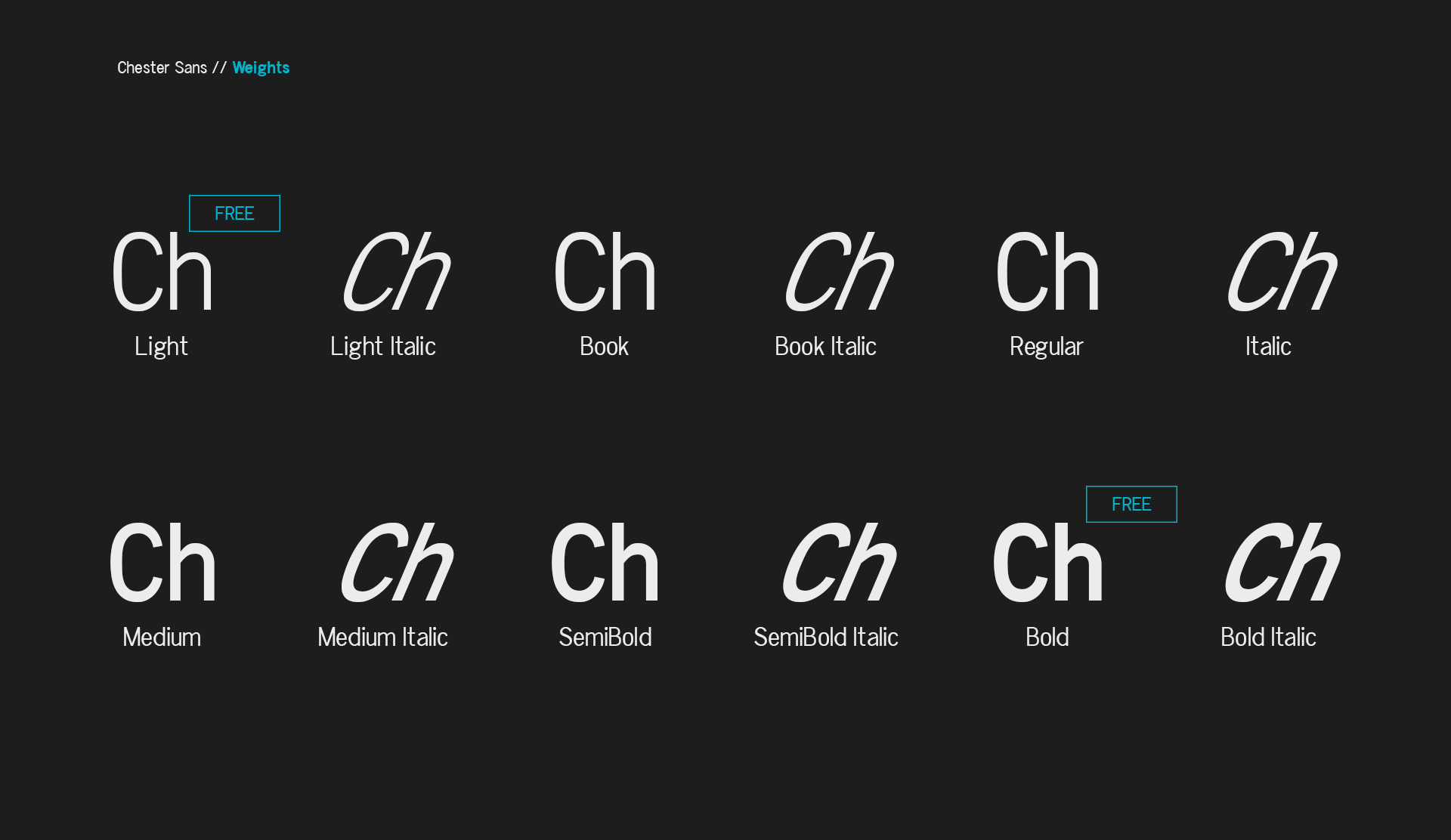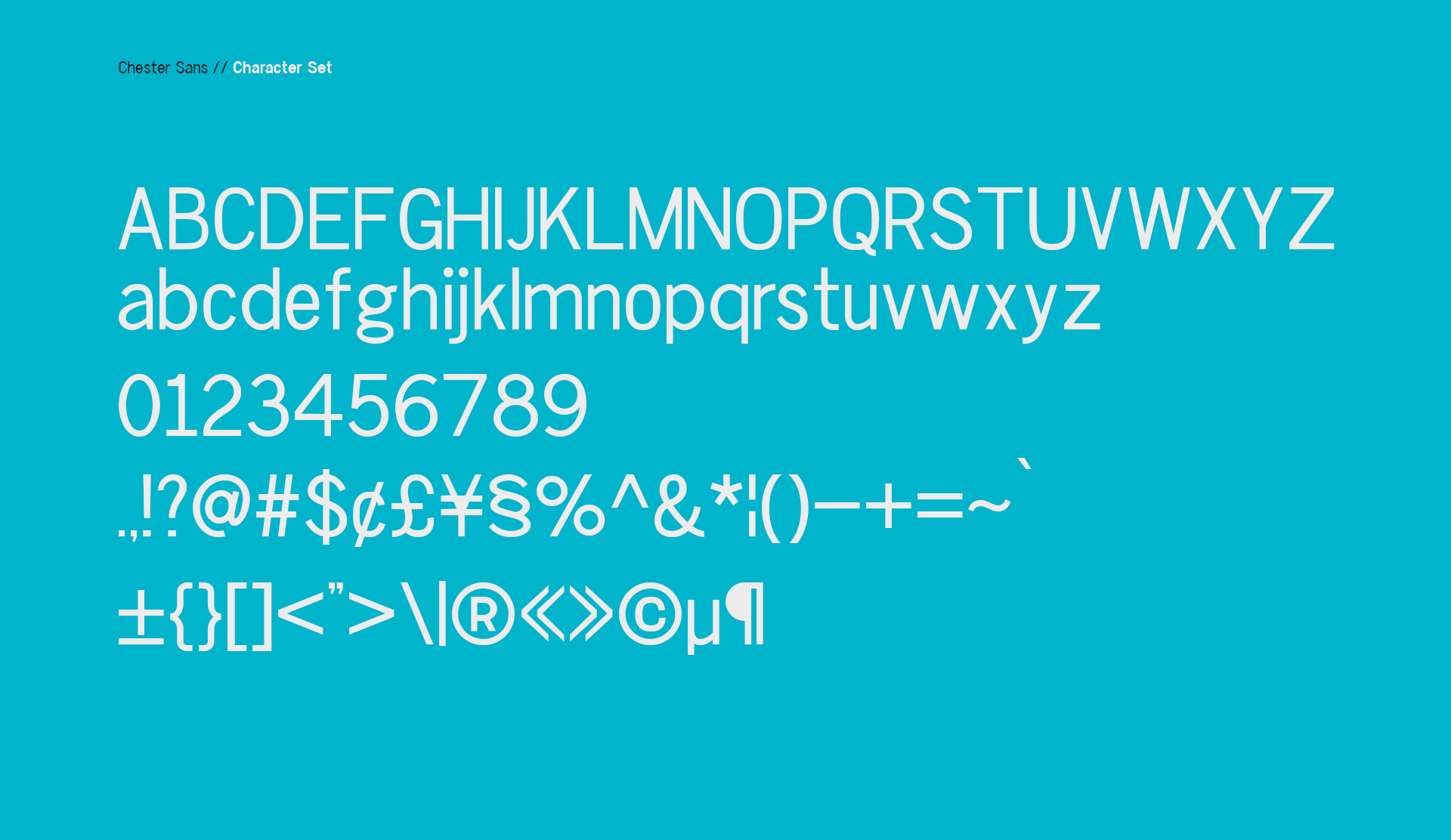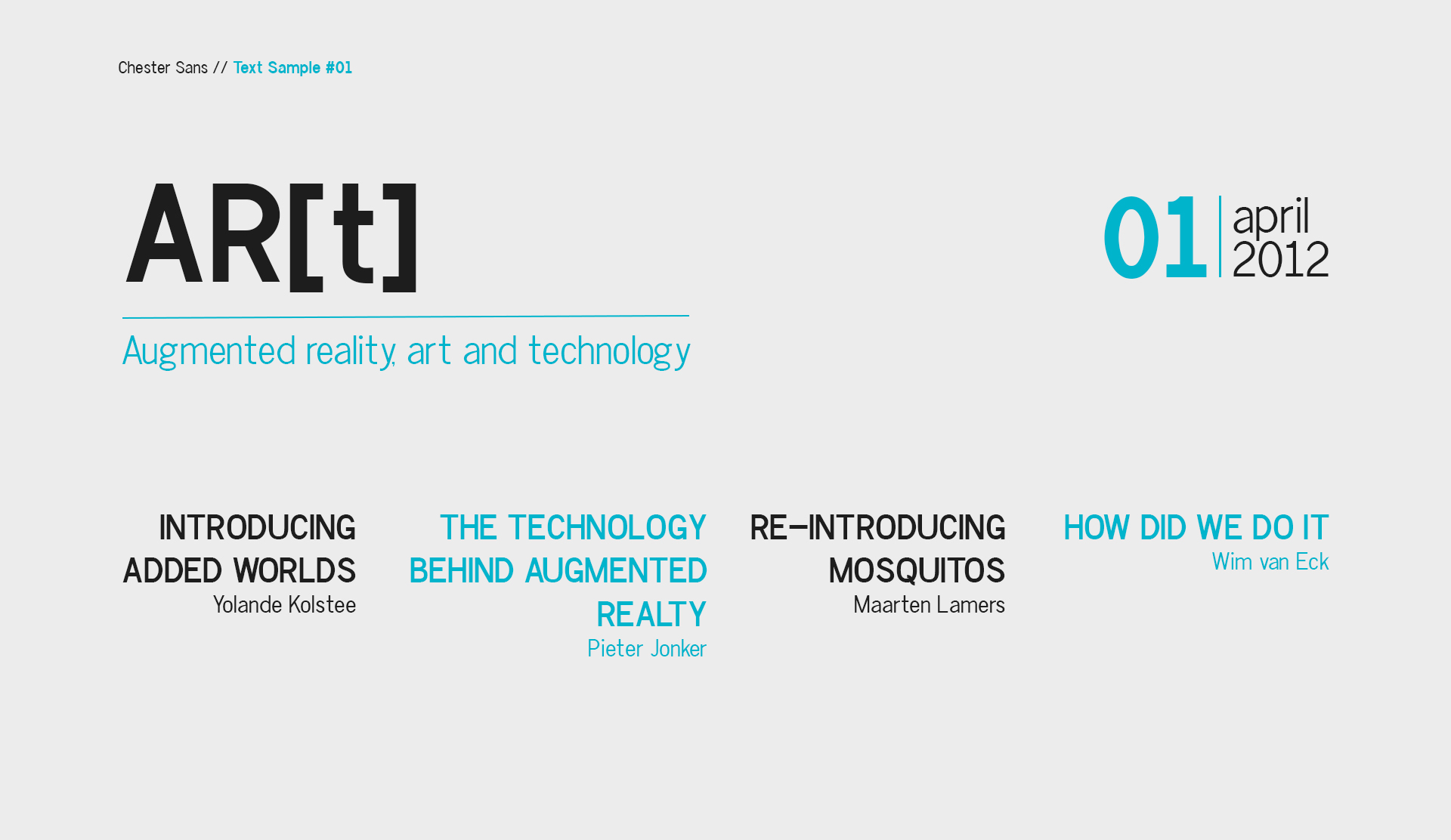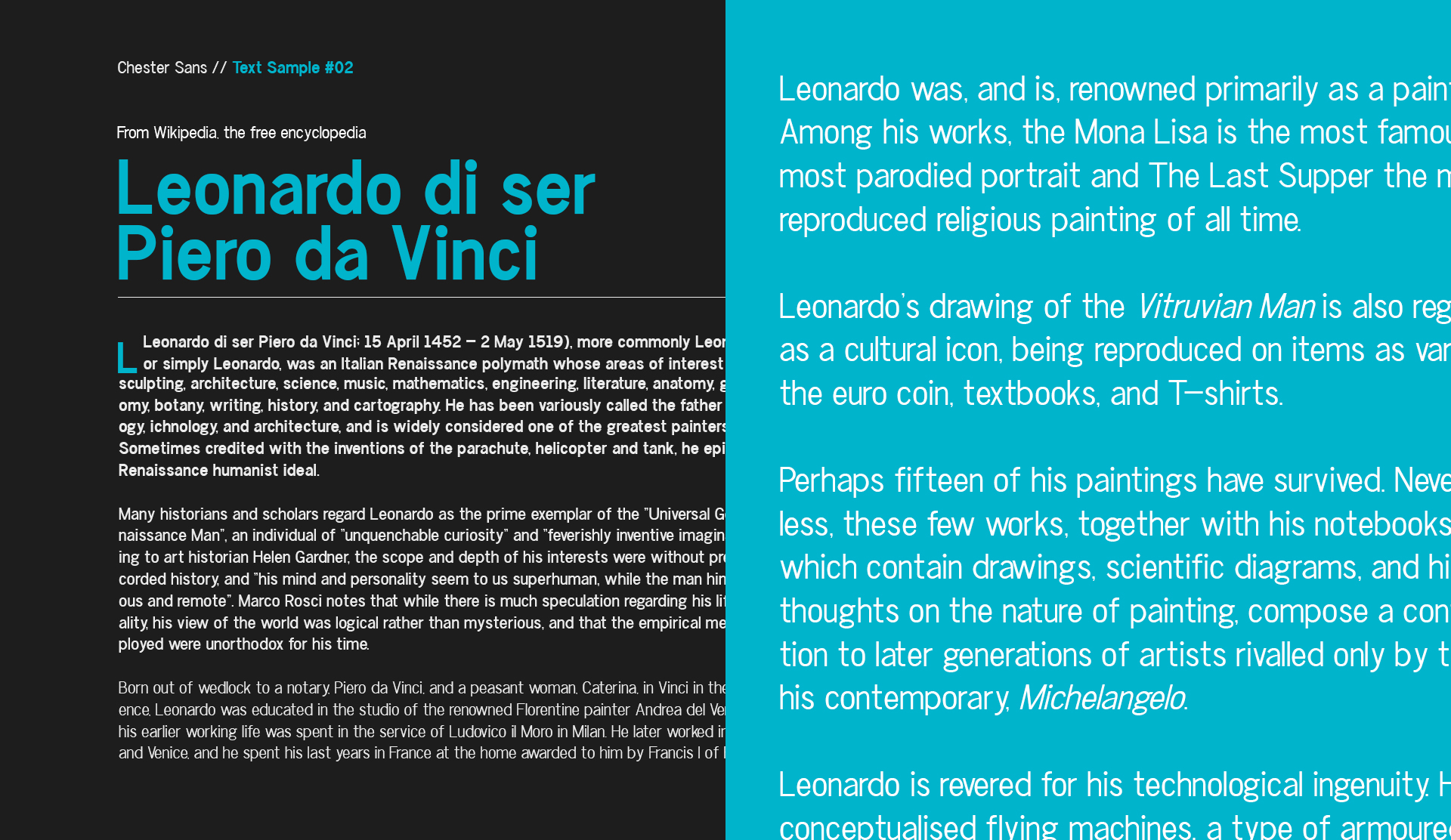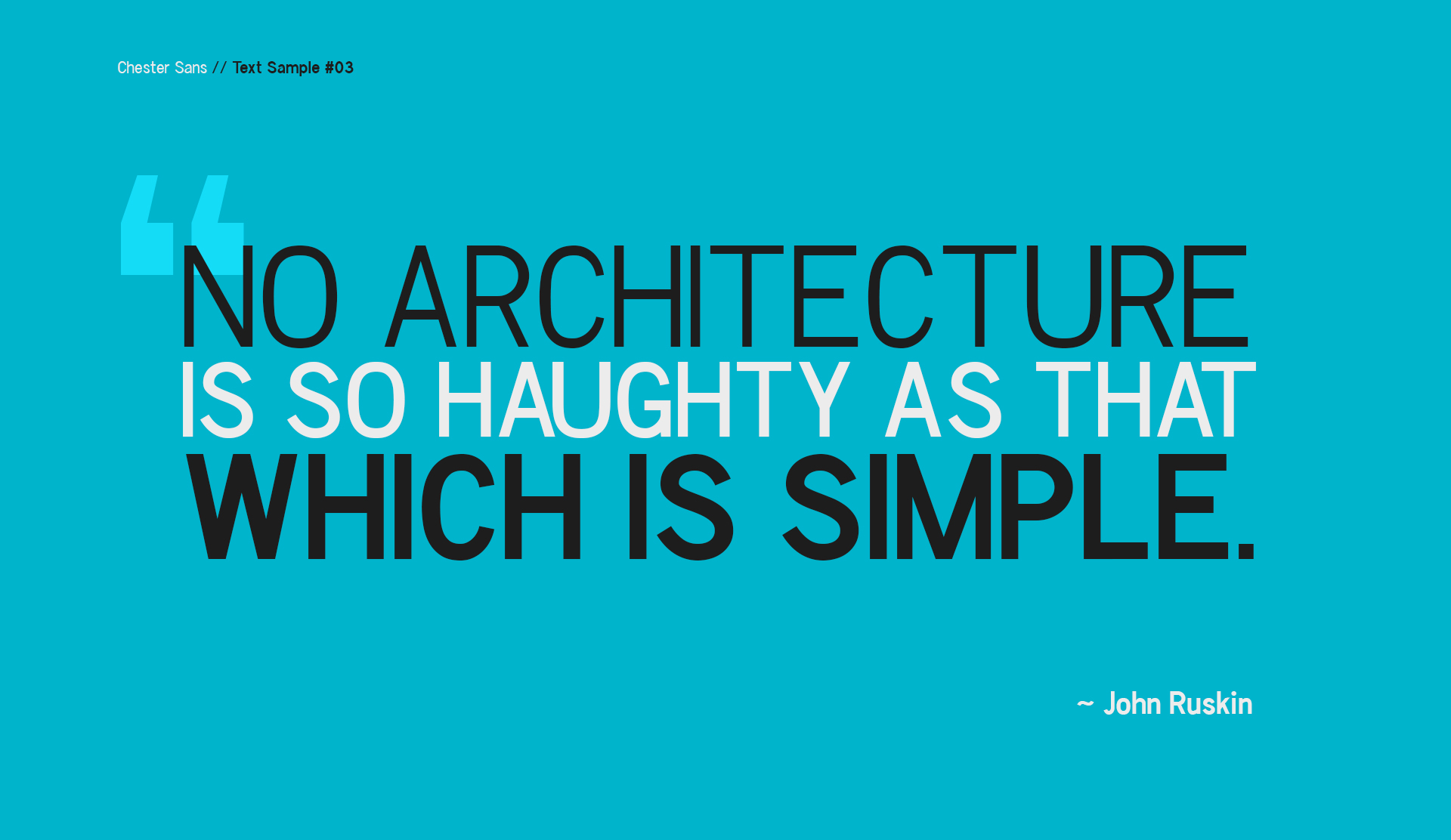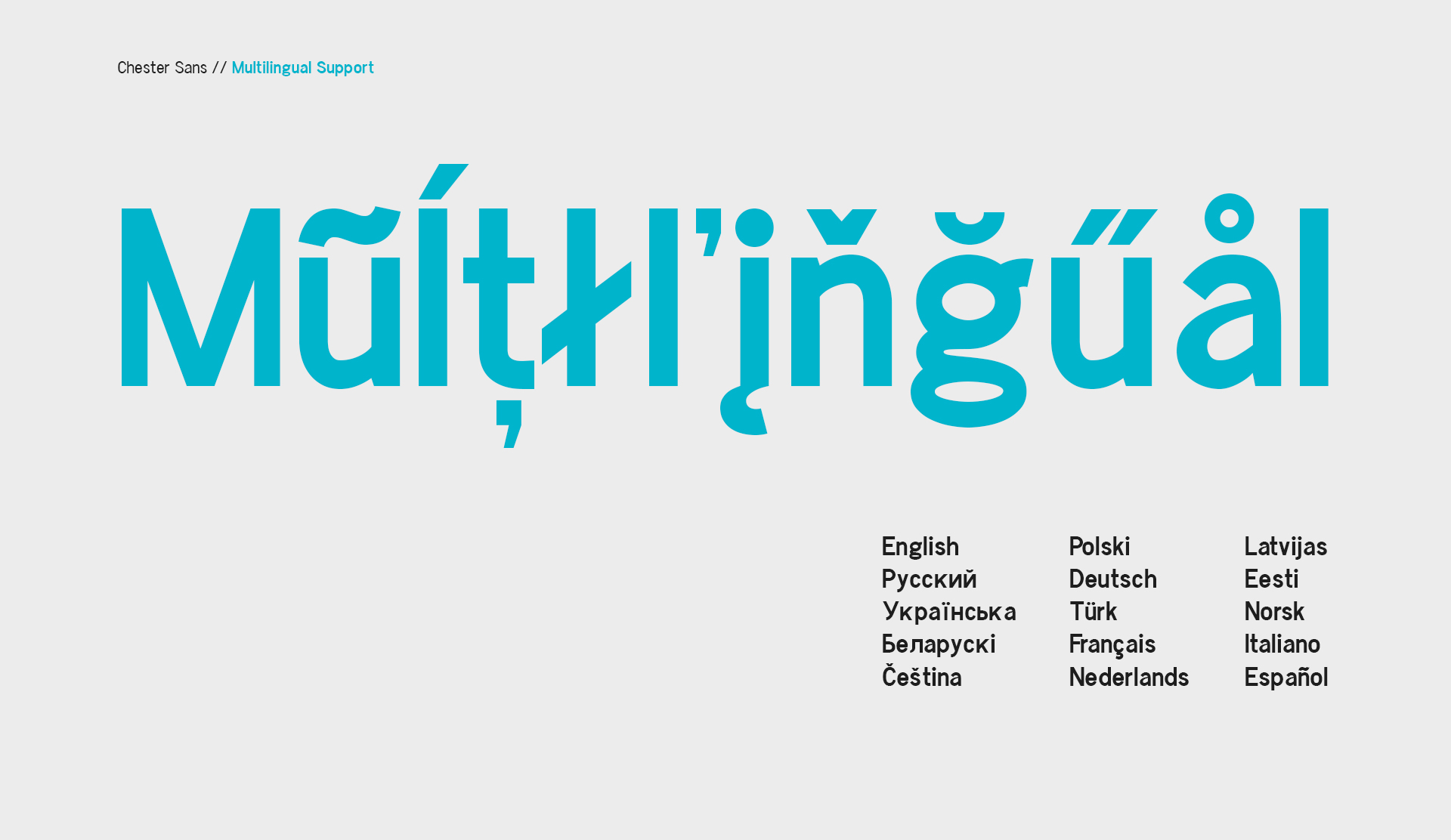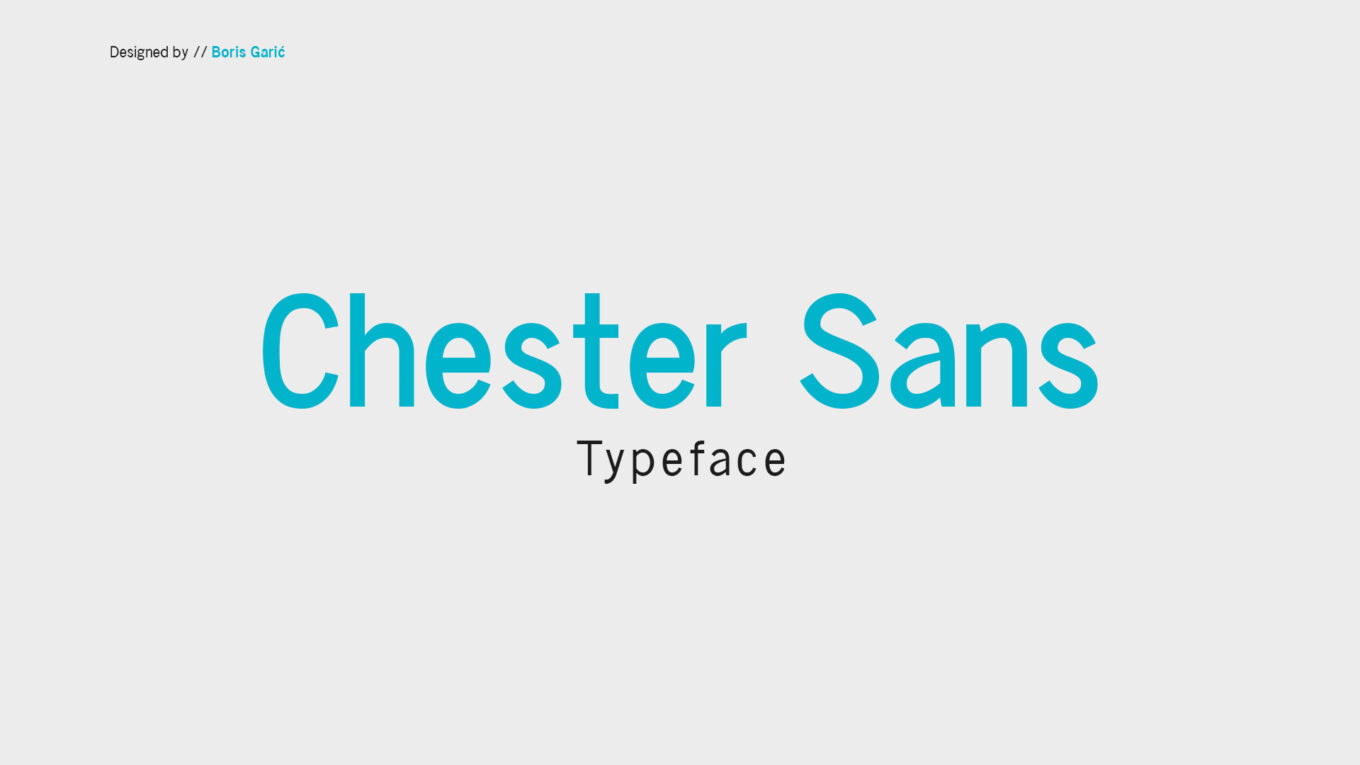
Introducing Chester Sans Font: A Sleek and Versatile Typeface
In the world of typography, creating a brand new typeface from scratch can be a daunting task, especially when working under a tight deadline. However, Boris Garic, a talented designer, took on this challenge and emerged with a stunning sans serif typeface, Chester Sans. With less than a week to design and develop this font, Boris pushed his creative boundaries to produce a versatile and clean typeface suitable for various design applications.
The Birth of Chester Sans
Boris Garic wanted to challenge himself in creating a brand new typeface in a short time frame. Boris had less than a week to design and come up with a simple Sans Serif typeface that can be used for everything numeric and text-based design such as annual reports, menus, books, etc. The result of all those sleepless nights and endless designing was Chester Sans Type family. Chester Sans comes with six weights plus matching italics in a total sum of 12 fonts.
Chester Sans is a sans serif typeface, characterized by its clean lines, simple shapes, and lack of embellishments. This font family is designed to be highly legible, making it perfect for body text, headings, and display use. The six weights, ranging from Light to Bold, offer a wide range of typographic possibilities, allowing designers to use Chester Sans for various design projects, from elegant corporate materials to bold advertising campaigns.
Key Features of Chester Sans
• 6 Weights and Matching Italics: Chester Sans offers a comprehensive range of 12 fonts, including six weights (Light, Regular, Medium, Semi-Bold, Bold, and Extra-Bold) and their matching italics.
• Clean and Simple Design: The font’s clean lines and simple shapes ensure excellent legibility, making it suitable for a wide range of design applications.
• Versatile and Adaptable: Chester Sans can be used for various design projects, including annual reports, menus, books, magazines, and digital media.
• OpenType Features: Chester Sans supports OpenType features, including ligatures, fractions, and stylistic alternates.
Use Cases for Chester Sans
Due to its versatility and clean design, Chester Sans can be used in a variety of design applications, such as:
• Corporate Design: Annual reports, brochures, and business cards.
• Publishing: Books, magazines, and newspapers.
• Digital Media: Websites, mobile apps, and digital advertising.
• Packaging: Menus, labels, and product packaging.
Why Choose Chester Sans?
With so many typefaces available, why choose Chester Sans? Here are a few reasons:
• Unique yet Legible: Chester Sans offers a distinctive yet highly legible design, making it perfect for designers looking for a clean and simple sans serif typeface.
• Time-Saving: With its comprehensive range of weights and styles, Chester Sans saves designers time and effort in finding the perfect font for their projects.
• High-Quality Design: Chester Sans is designed with precision and attention to detail, ensuring a high-quality look and feel for any design project.
In conclusion, Chester Sans is a versatile and clean sans serif typeface, designed to meet the needs of designers and crafters. With its comprehensive range of weights and styles, Chester Sans is perfect for various design applications, from corporate design to digital media. Whether you’re looking for a font for body text, headings, or display use, Chester Sans is an excellent choice.